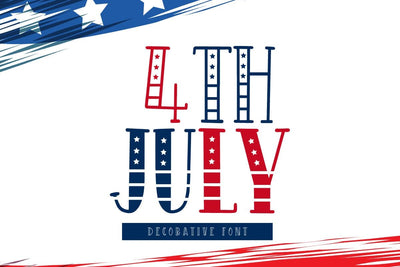
4th July - Display Font
4th July is a decorative font. This font uses stars to decorate the letters to match the 4th of July festival. This font has a lovely quirky style. Suitable for creating new designs Various backgrounds to match your retro theme such as banners, content, mugs, cards, shirts, beautiful stationery, social media posts and many more!